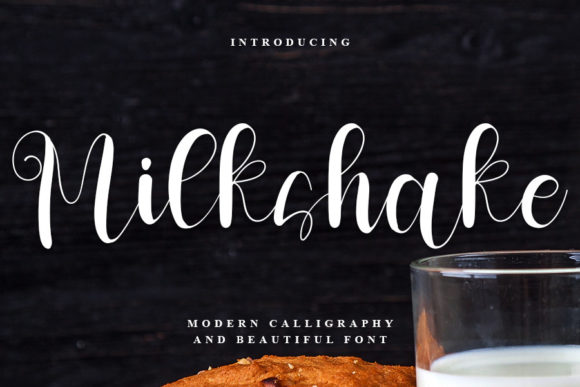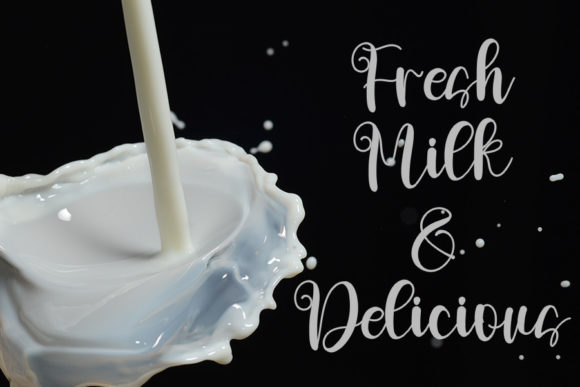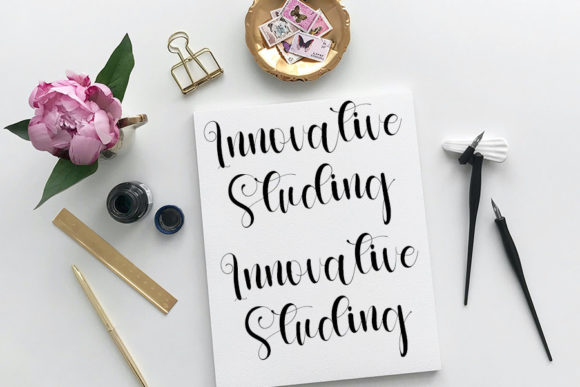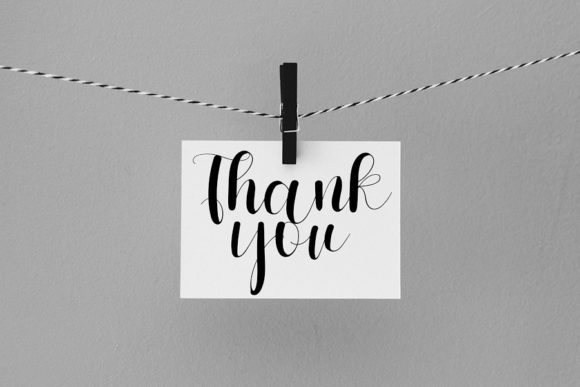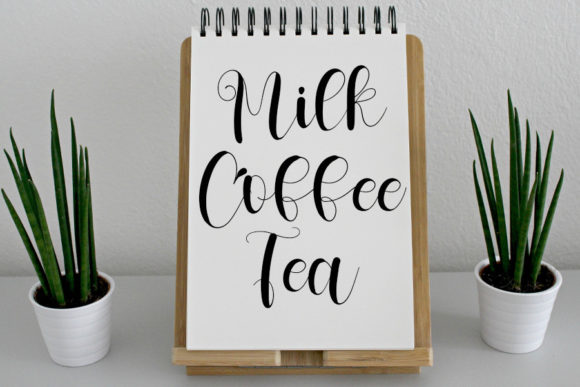
Milkshake Font
About Milkshake Font
Milkshake is a beautiful and romantic calligraphy typeface that adds a touch of elegance and charm to your designs. With its characters dancing along the baseline, this font brings a sense of fluidity and movement to your text.
The stylish and sophisticated nature of Milkshake makes it suitable for a wide range of design purposes. It works well as a logo font, adding a touch of personality and femininity to your brand identity. The flowing letterforms and intricate details make Milkshake particularly well-suited for wedding invitations, where it can bring a sense of romance and sophistication to the design.
In addition to logos and wedding invitations, Milkshake can be used for headings, t-shirts, letterhead, signage, labels, news, posters, badges, and more. Its versatility allows it to adapt to various design styles and themes, from vintage and retro to modern and minimalist.
The beauty of Milkshake lies not only in its graceful letterforms but also in the abundance of ligatures and swashes it offers. These decorative elements provide you with endless possibilities for creating unique and eye-catching compositions. Whether you want to add flourishes to certain letters or create intricate letter combinations, Milkshake’s wide range of glyphs and swashes allow you to achieve the desired effect with ease.
The combination of Milkshake’s calligraphic style, flowing baseline, and decorative elements gives your designs a sense of artistry and craftsmanship. It adds a personal and handmade touch, making your creations stand out and leaving a lasting impression on your audience.
Whether you’re designing a wedding invitation, a logo for a romantic brand, or any other project that calls for a touch of elegance and romance, Milkshake is a fantastic choice. Its versatility, beauty, and attention to detail make it a go-to font for adding a dash of sweetness and sophistication to your designs.
In conclusion, Milkshake is a romantic and sweet calligraphy typeface that brings elegance and charm to a wide range of design projects. Its flowing characters, decorative elements, and PUA encoding allow you to create stunning and unique compositions for logos, invitations, headings, and more. Embrace the beauty of Milkshake and let it enhance your designs with its romantic allure.